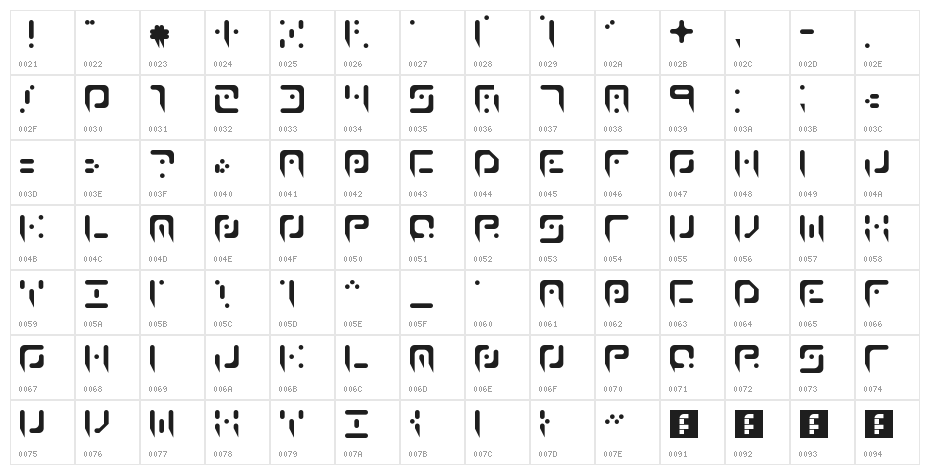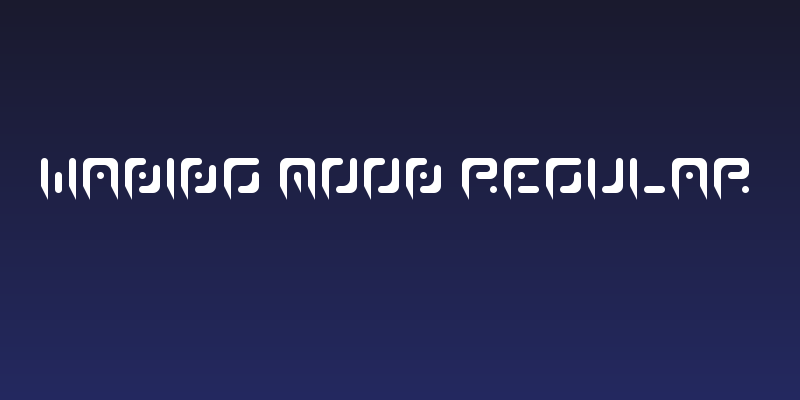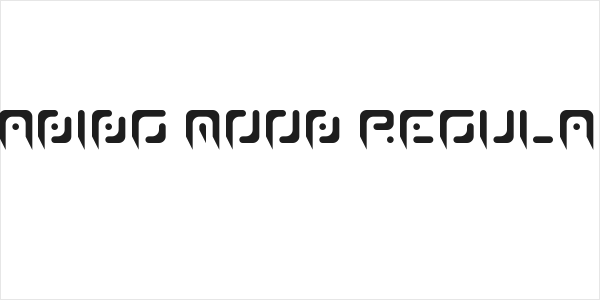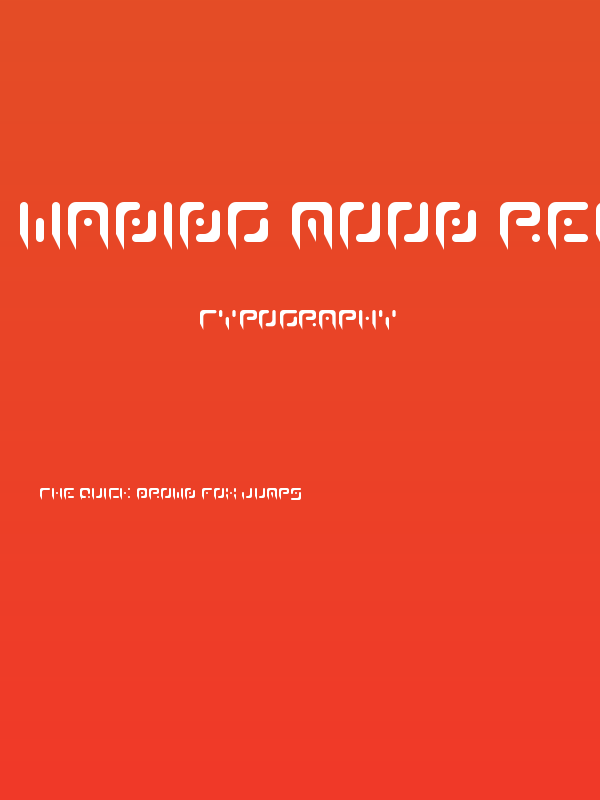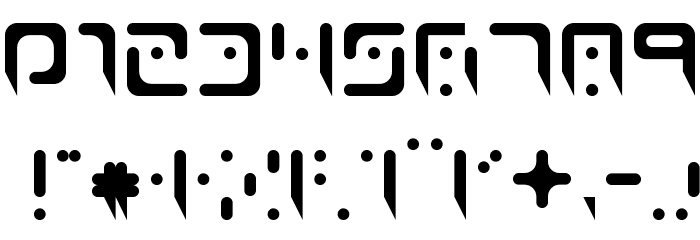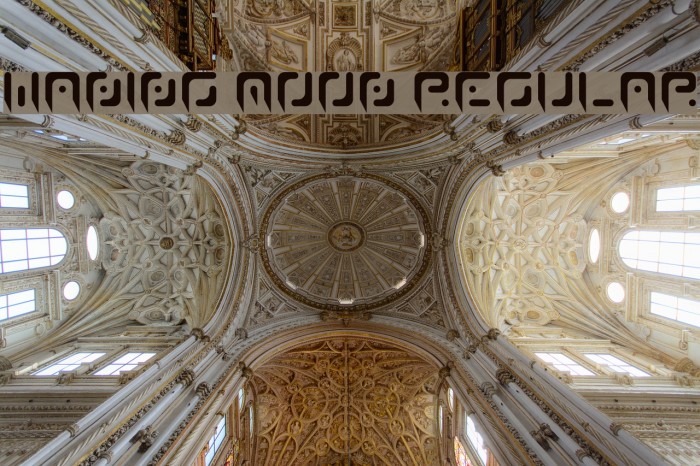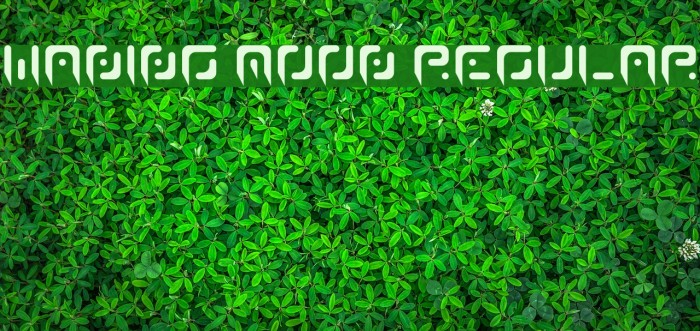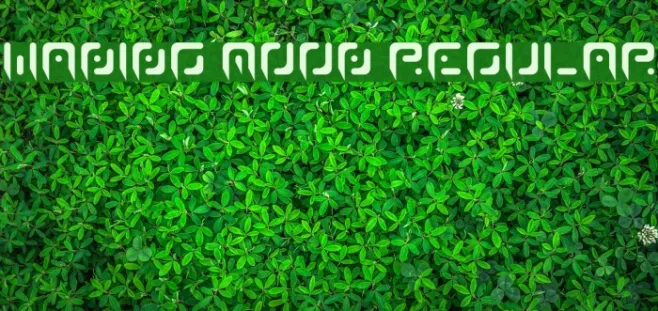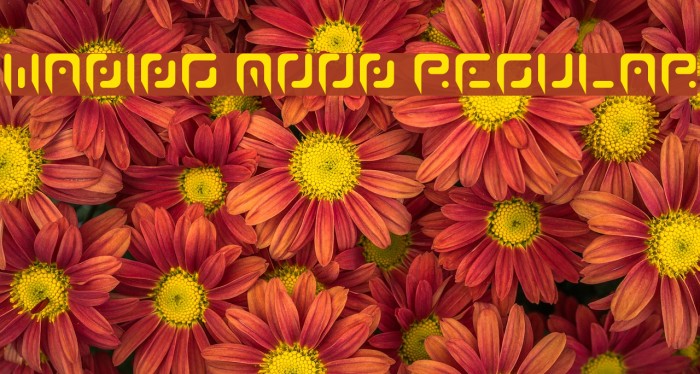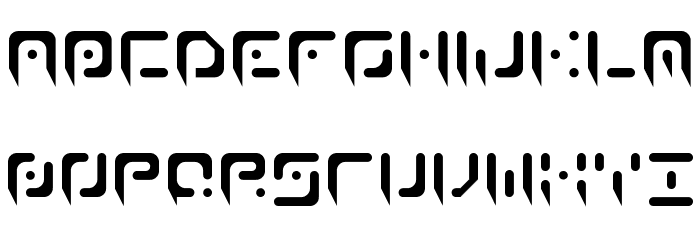
Waning Moon Regular Font
Waning Moon Regular Description
This font features a futuristic and geometric design with sharp angles and unique cutouts, giving it a distinct sci-fi appearance. The characters are bold and blocky, with a consistent thickness throughout, creating a strong visual impact. The use of negative space and angular forms adds to its modern and edgy aesthetic. The font is highly stylized, making it suitable for creative and unconventional projects. Its unique design elements make it stand out, offering a fresh take on traditional letterforms.
| Proposed Projects | Ideal for sci-fi themed designs, video game titles, movie posters, and branding for tech companies. |